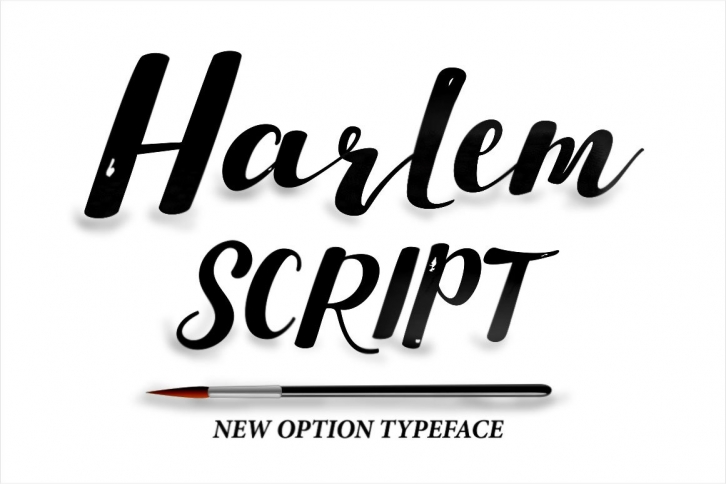
Harlem Script a handwriting style for a beautiful and naturally give the impression of a beautiful and charming in the form of arms and fonts you can use for your purposes in big events such as, Party, Invitations, Graduation, Wedding, Apparel Brand, greeting cards, book covers , painting style design, or designs that require a natural and personal touch.